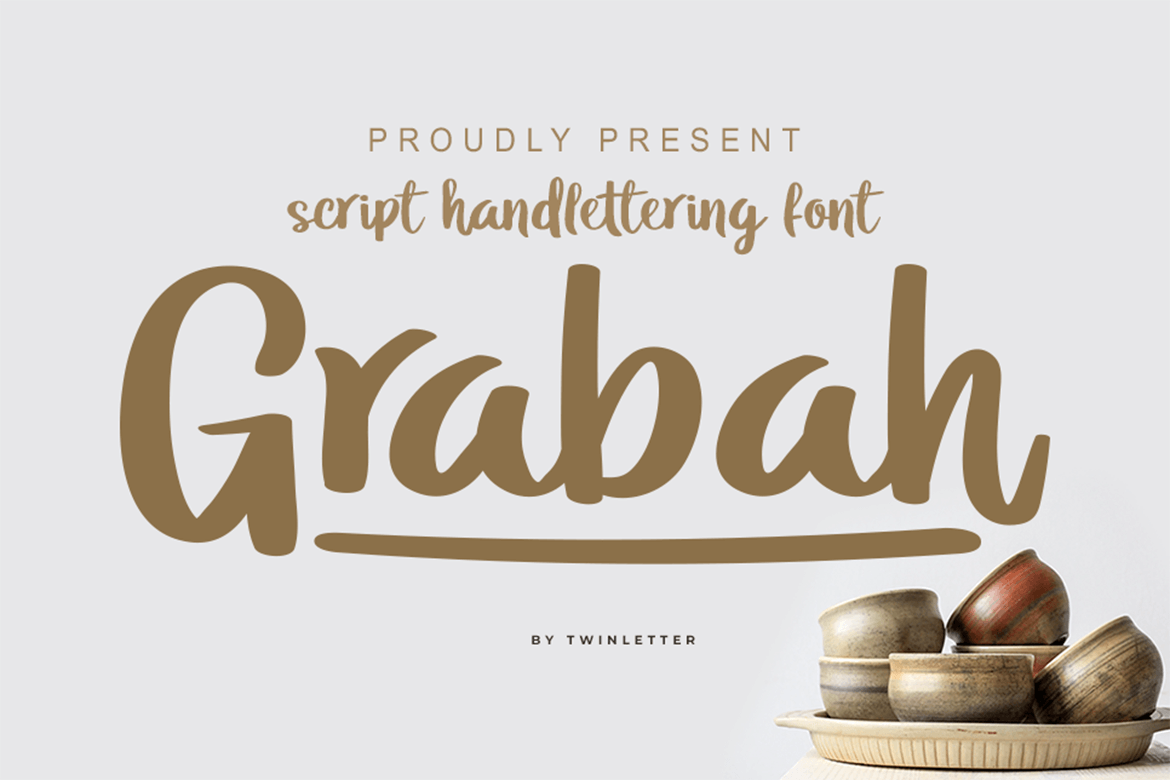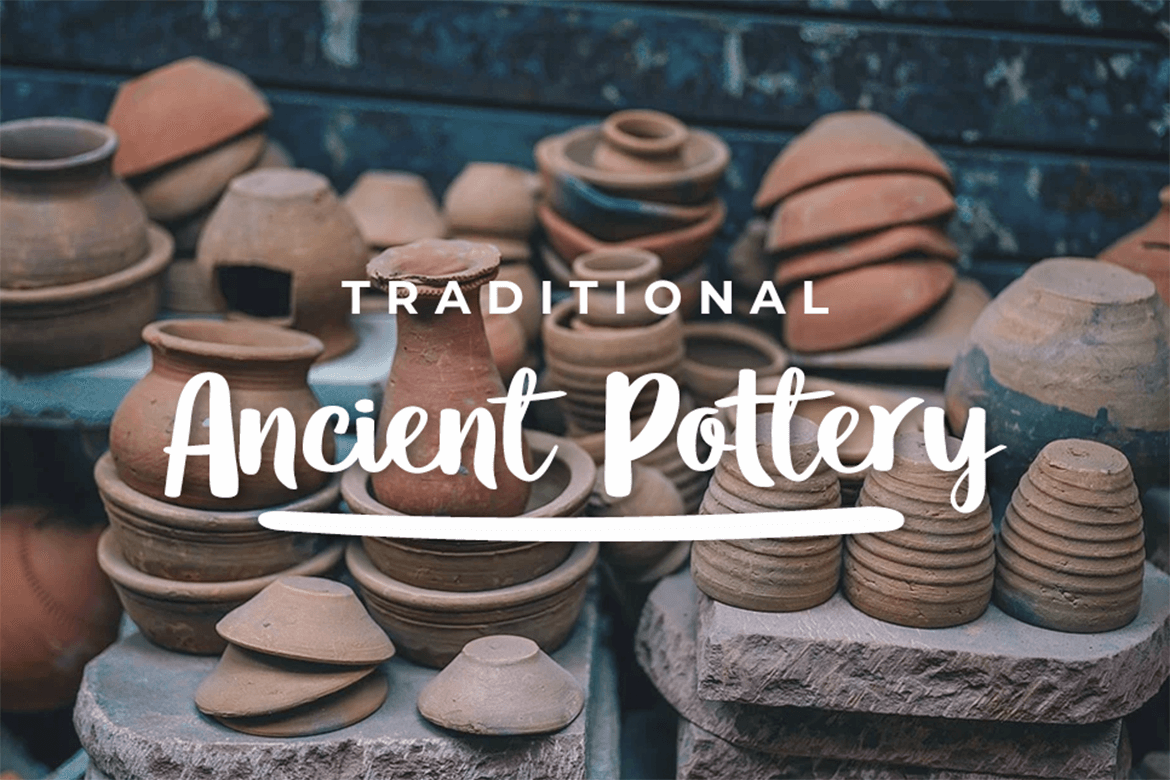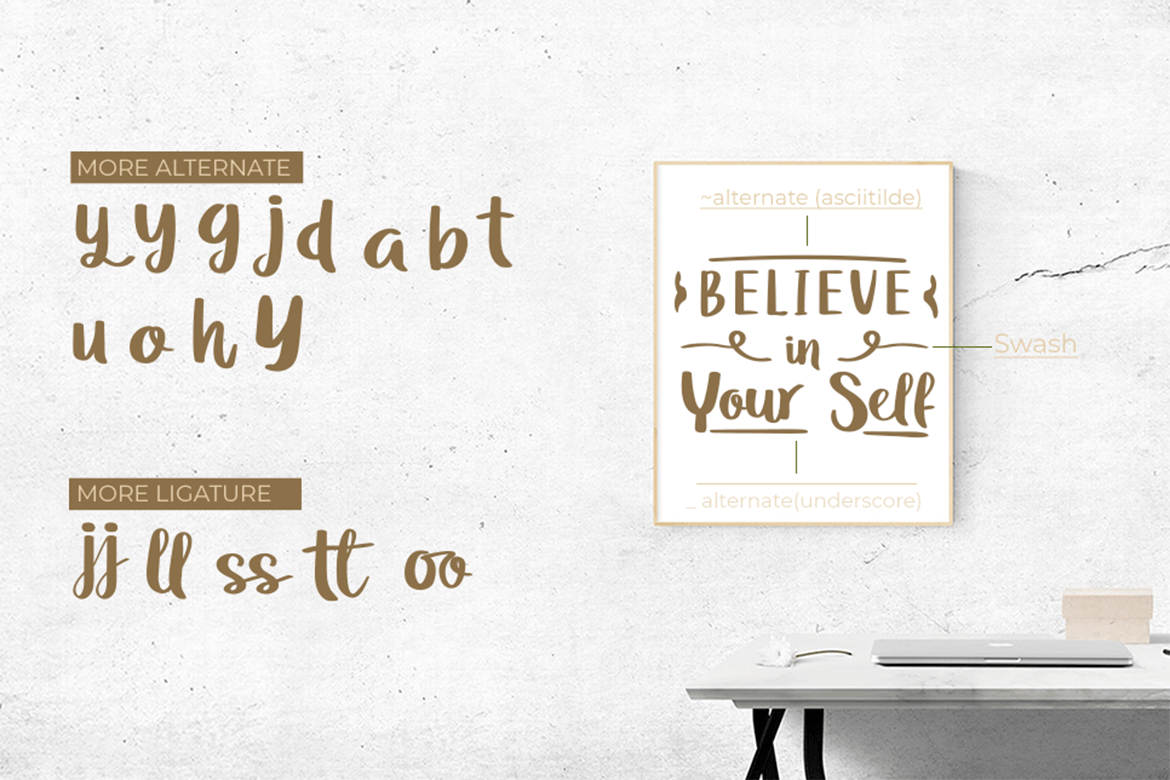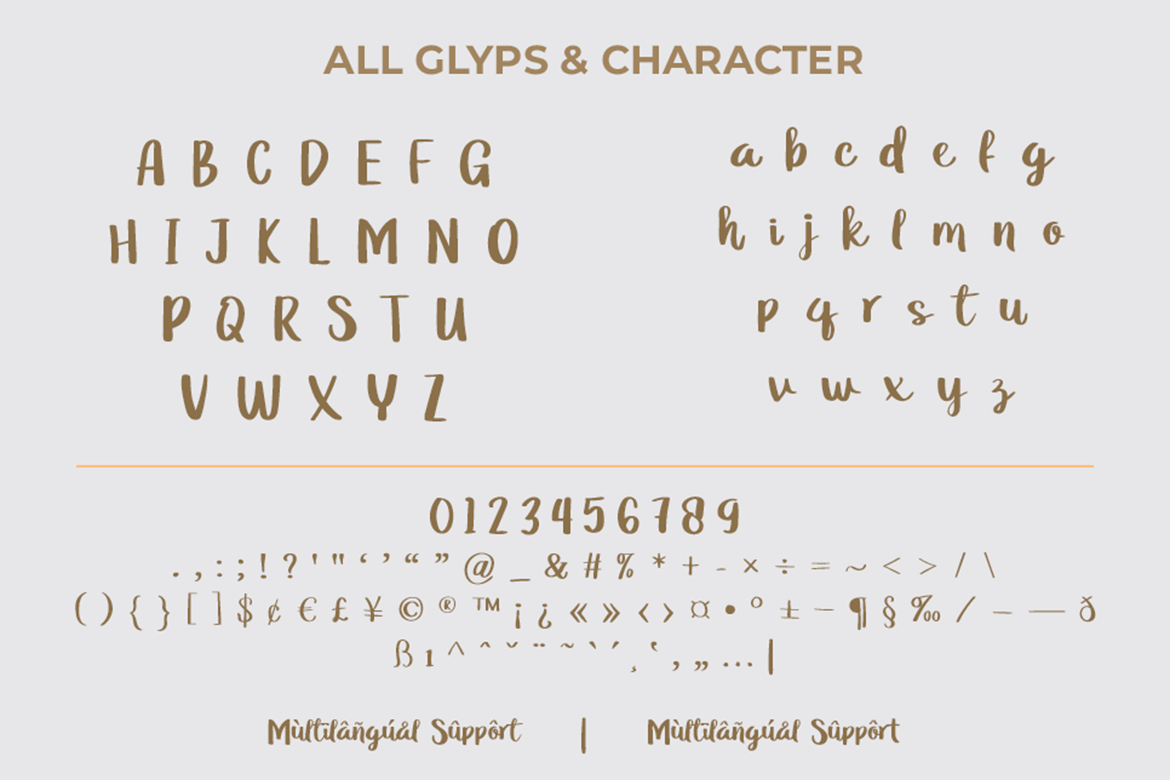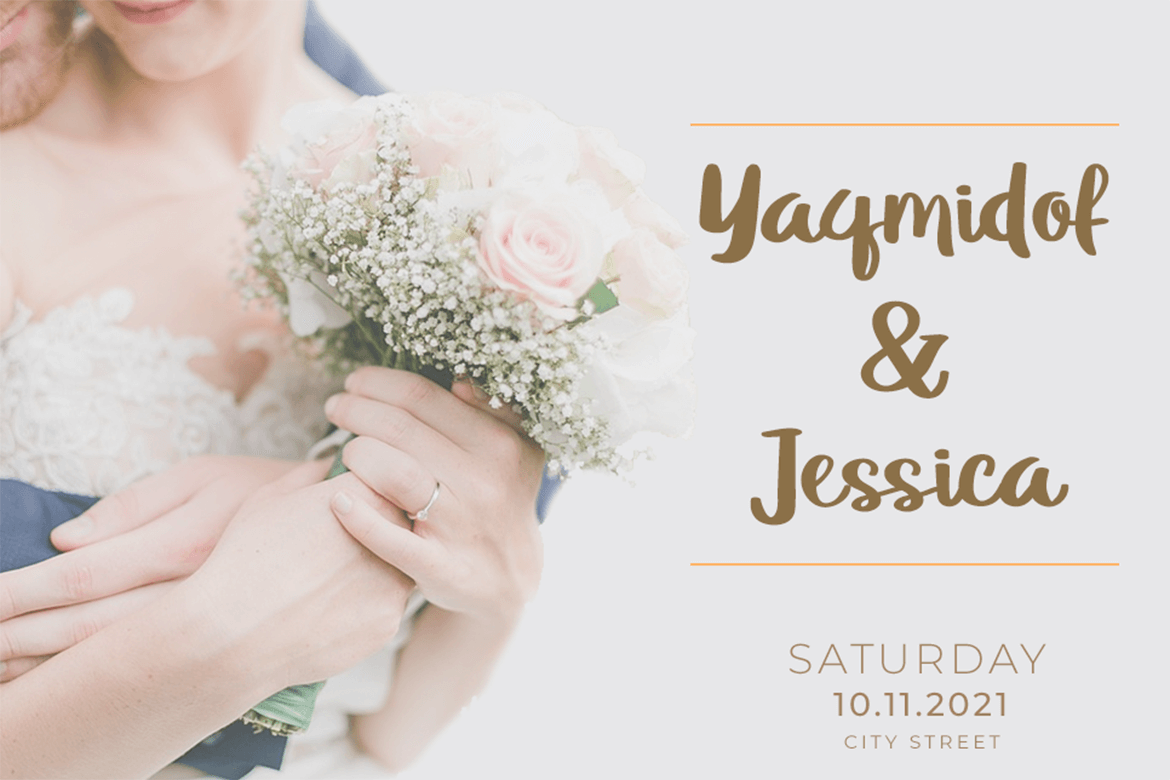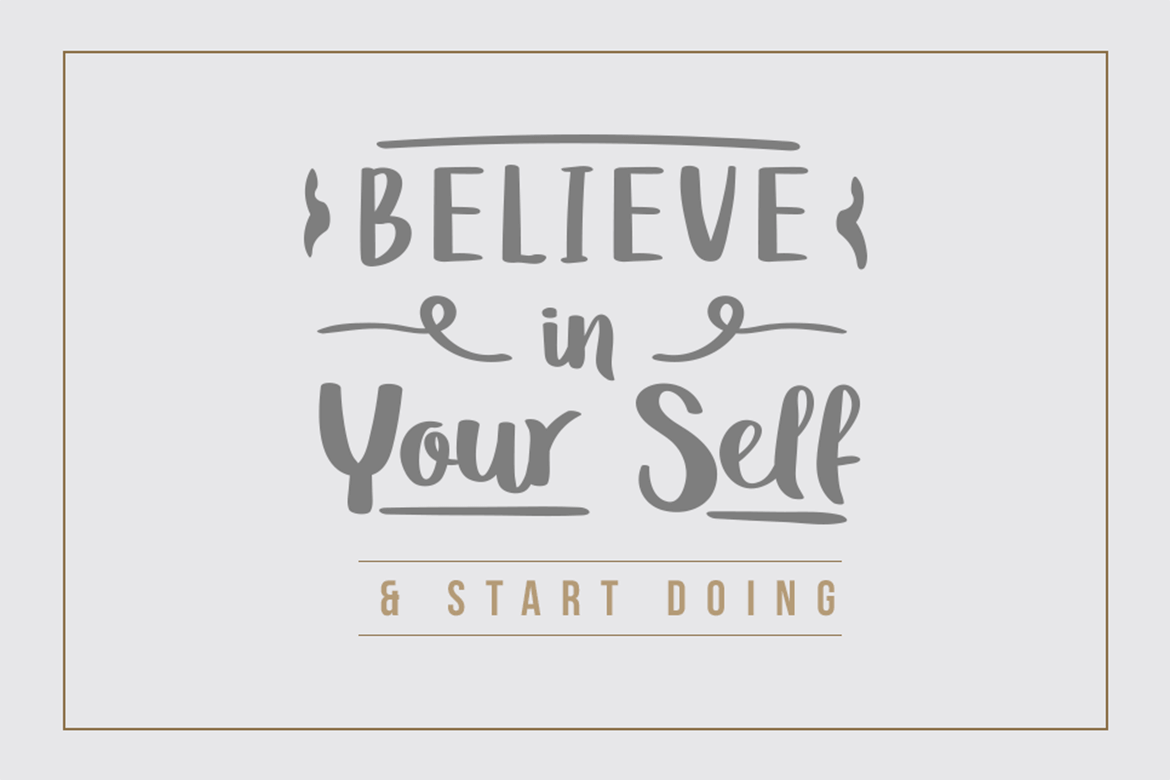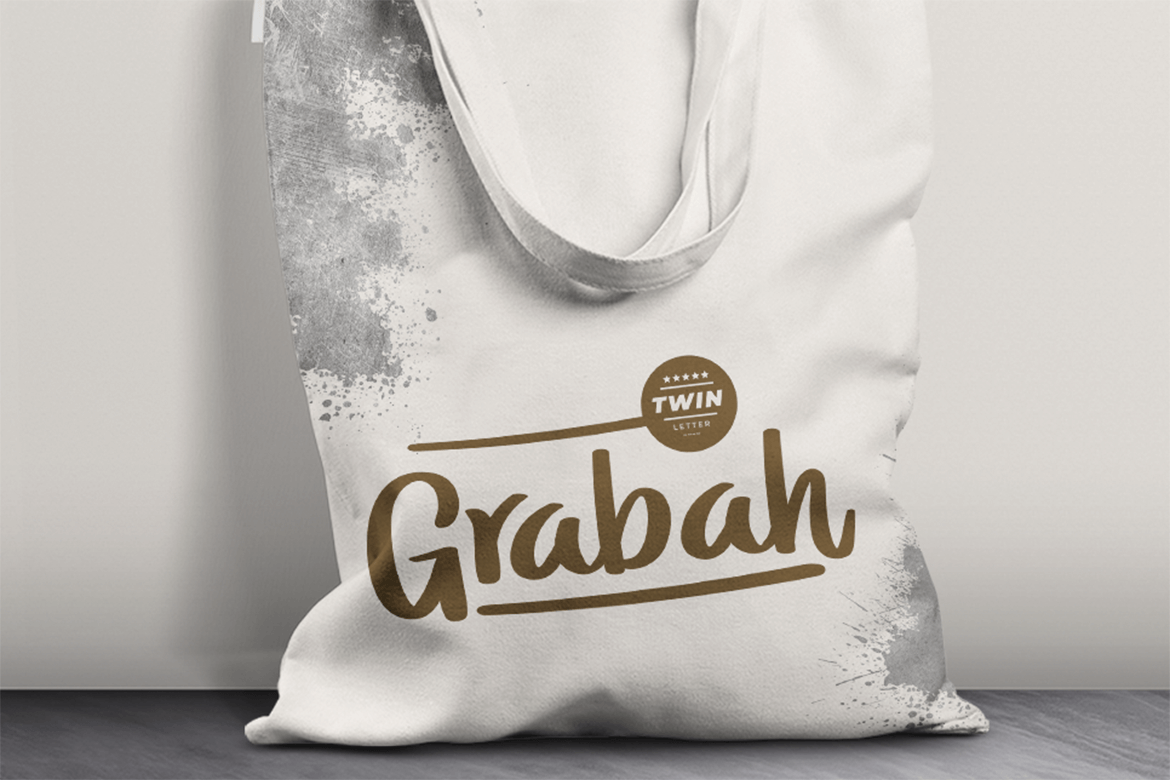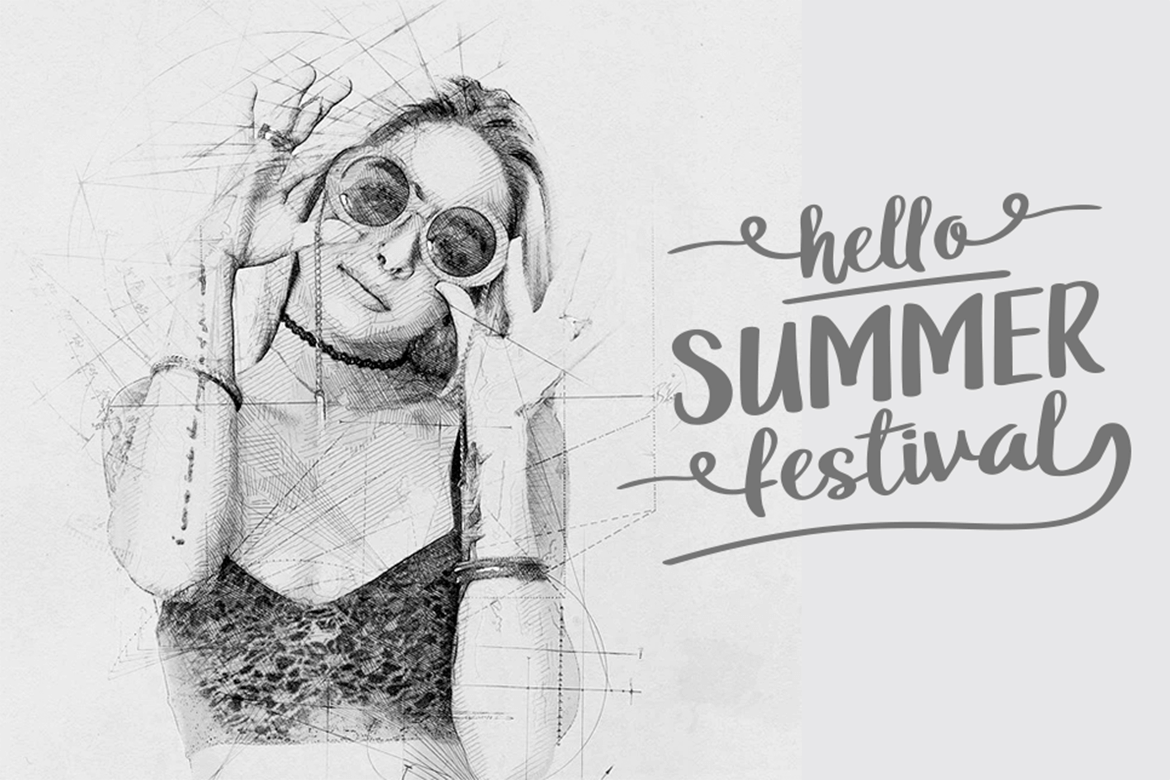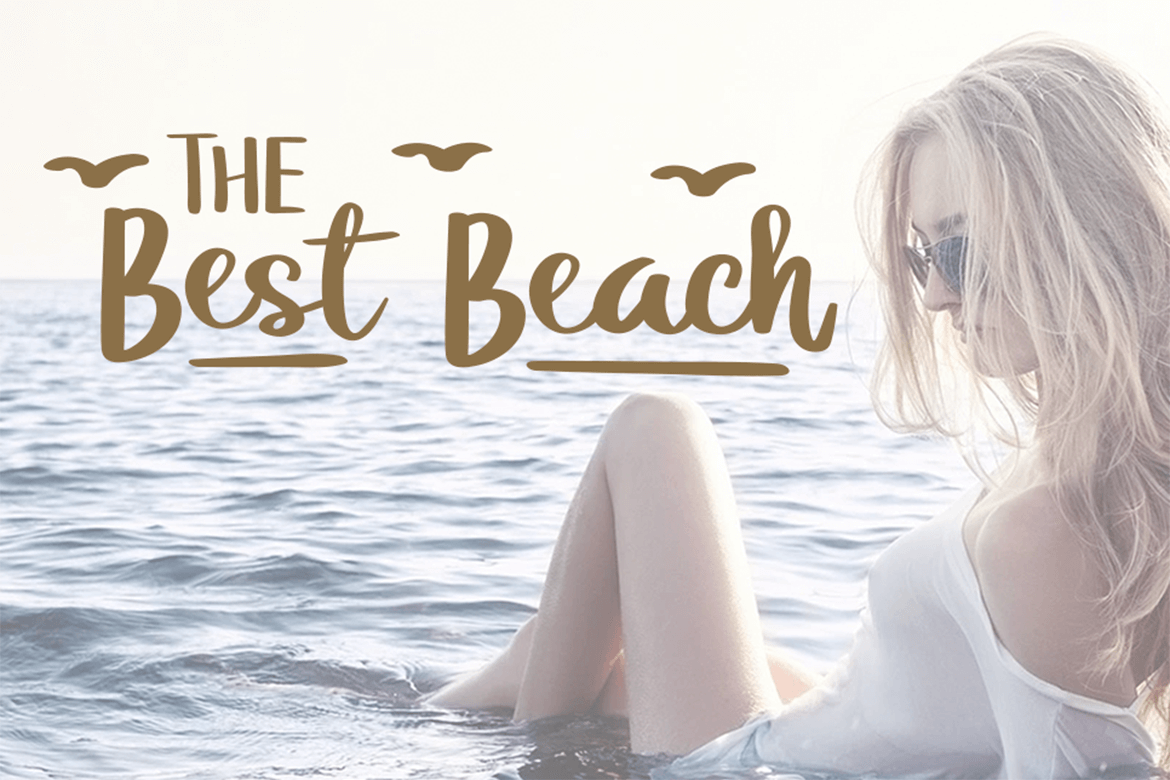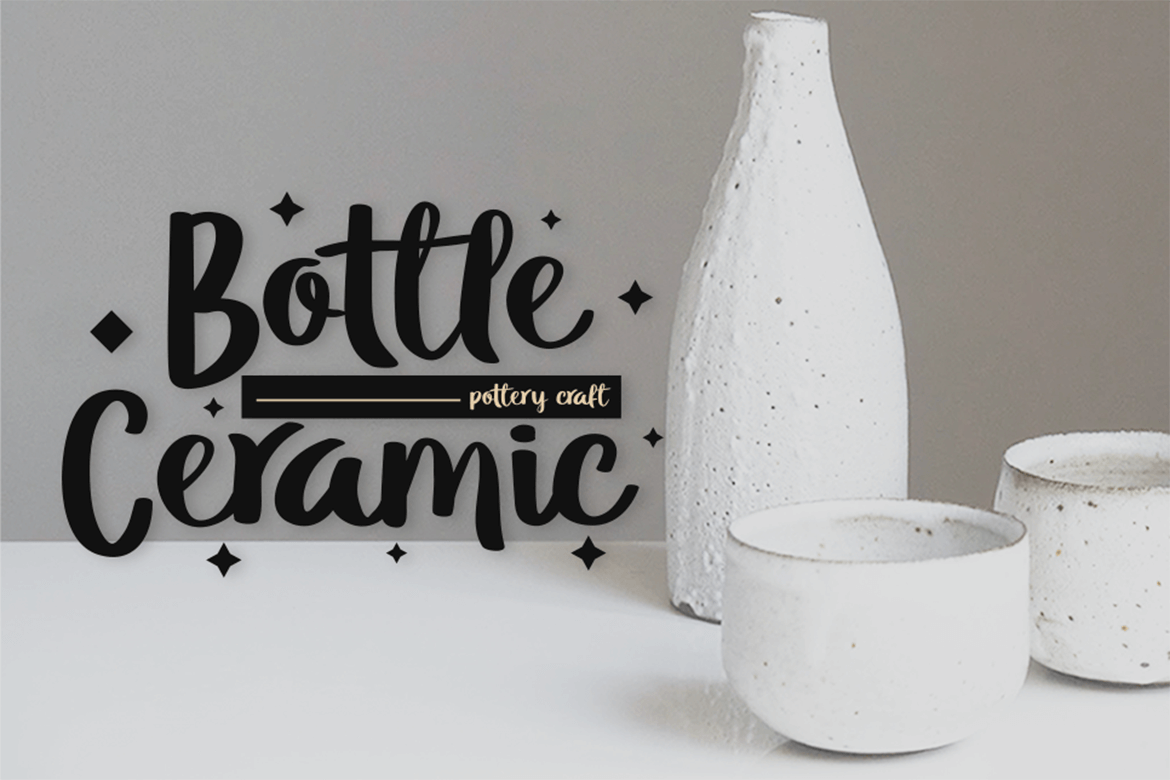
Grabah
Grabah features an elegant and friendly style. Use this beautiful handwritten font to elevate a wide range of design projects to the highest level, be it branding, headings, wedding designs, invitations, signatures, logos, labels, and much more!
- Fonts include multilingual support for; Afrikaans, Albanian, Croatian, Czech, Danish, Dutch, English, Estonian, Finnish, French, German, Hungarian, Italian, Norwegian, Polish, Portuguese, Slovak, Slovenian, Spanish, Swedish